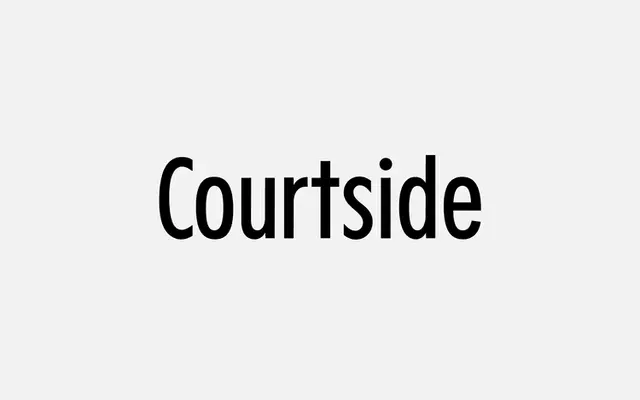
Courtside
A tall condensed display face with sharp corners and low contrast, drawing on 1990s sports and tech design aesthetics.
Built around tall, condensed letterforms with sharp corners and low contrast, it captures the streamlined efficiency associated with 90s sports branding and forward-thinking graphic design. Available in just two styles, Regular and Italic, the family is lean but purposeful. Works well for headlines, posters and sports-adjacent identities where a retro-professional edge is wanted.
Tall, condensed letterforms with low contrast and sharp corners place this firmly in display territory, evoking 90s sports and tech aesthetics rather than text-setting traditions.